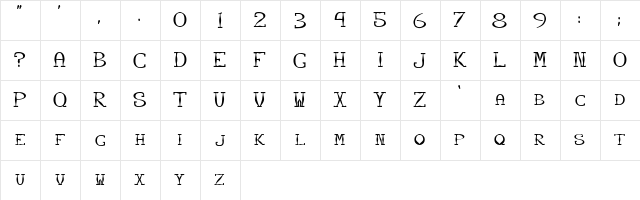
Louisbourg Regular
Design Context for Louisbourg Typeface
Louisbourg offers clean, dependable letterforms without strong stylistic allegiance, making it a practical choice for designers who need flexibility.
Pro Tip: Pair Louisbourg with a font of contrasting weight or personality to build a more expressive typographic hierarchy.